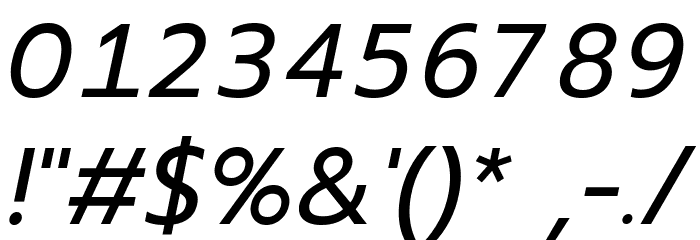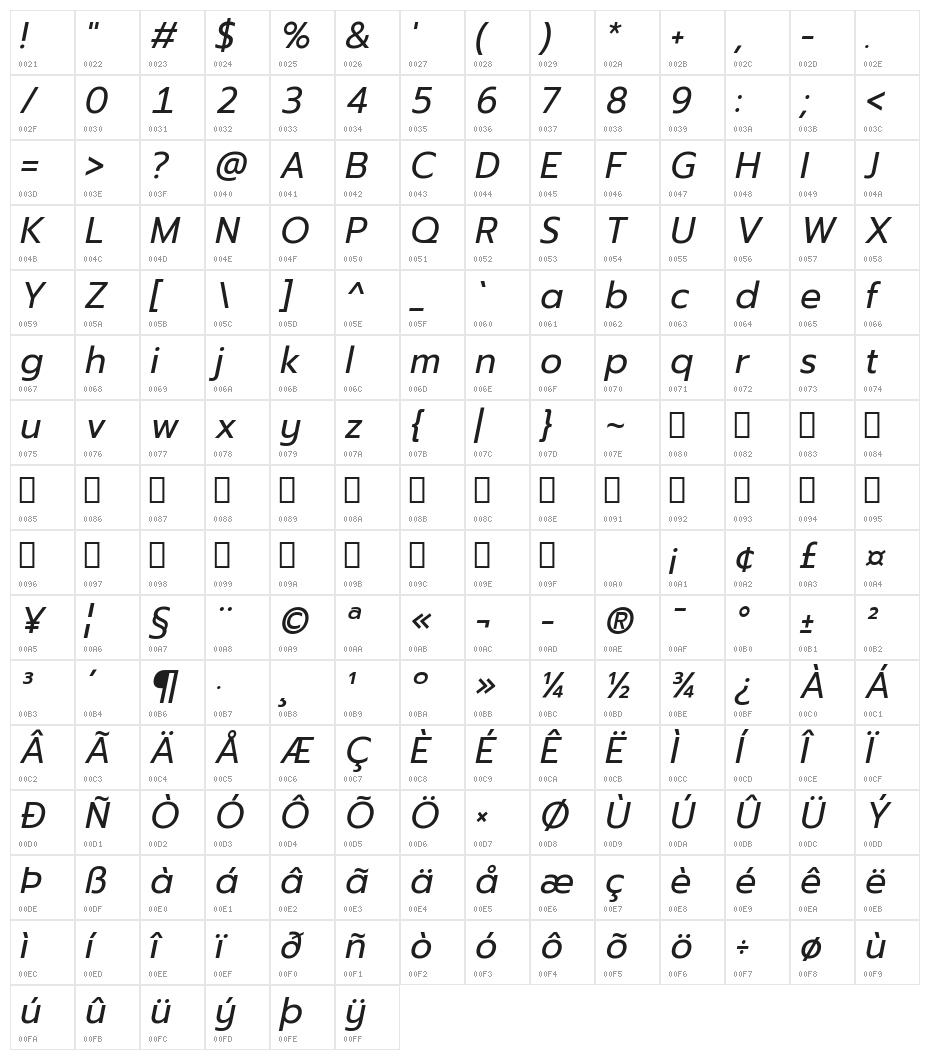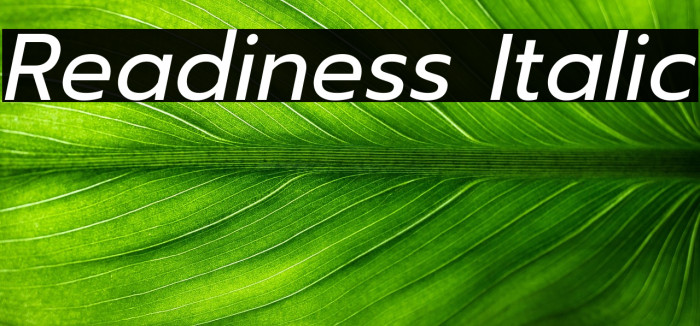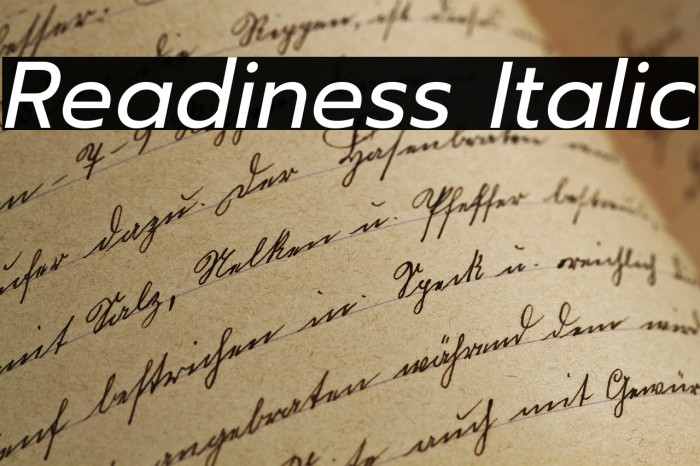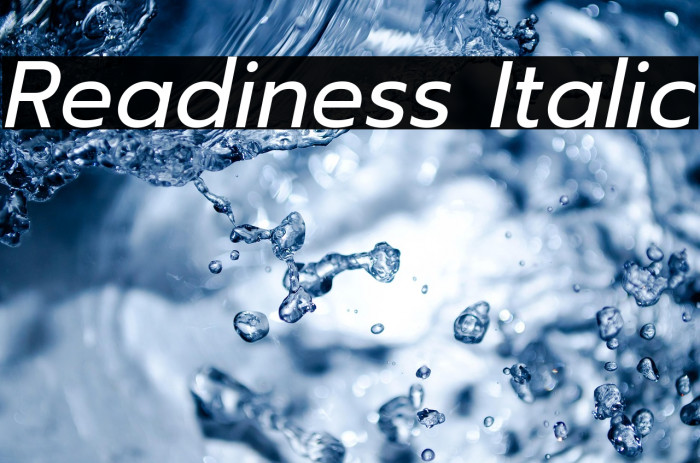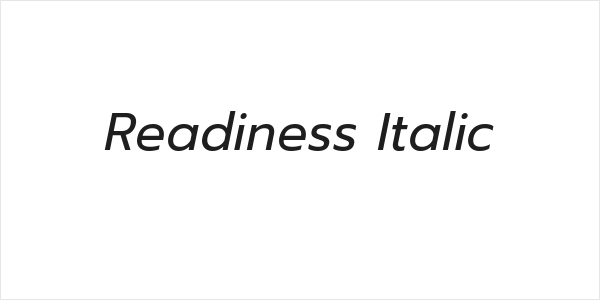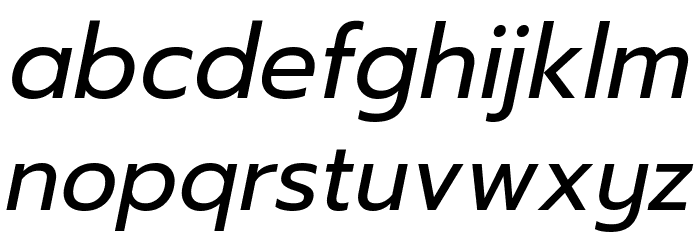
Readiness Italic Font
Readiness Italic Description
This font features a sleek and modern italic style, characterized by its smooth curves and slightly slanted letters. The design is clean and minimalistic, with a consistent stroke width that gives it a uniform appearance. The uppercase and lowercase letters are well-balanced, providing a harmonious look. The numerals are clear and easy to read, making them suitable for various applications. Special characters are included, maintaining the same elegant style. This font is versatile, suitable for both digital and print media, and can be used in a variety of design projects.